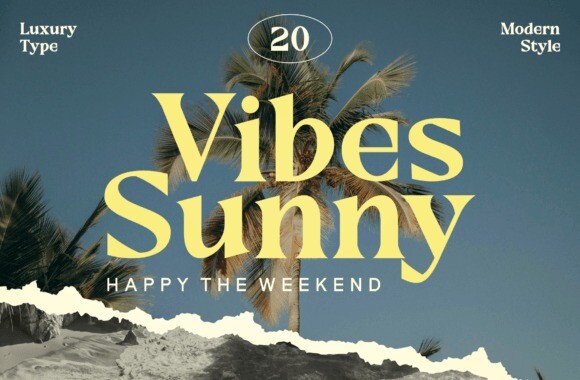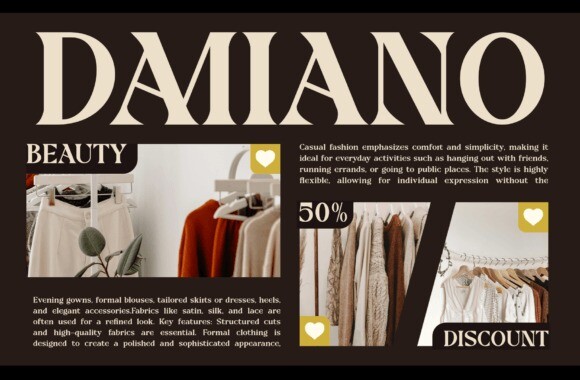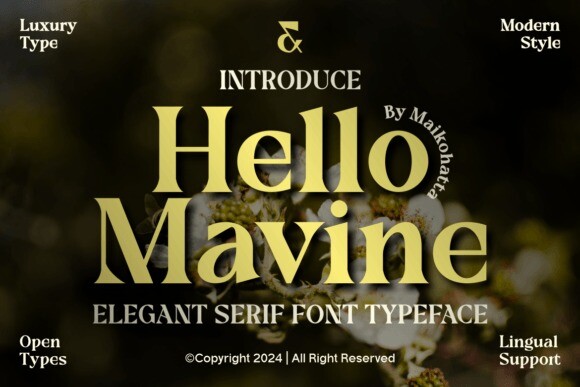
Hello Mavine Font
Hello Mavine Font – Elegant Serif Typeface. This font is a type of letter that has special characteristics that create the impression of luxury, elegance and firmness. This font involves a series of design elements such as balanced thin and thick lines, gentle curves, and elegant and clean serifs. The sharp corners and fine details of each character create a highly aesthetic impression and exude an air of elegance.